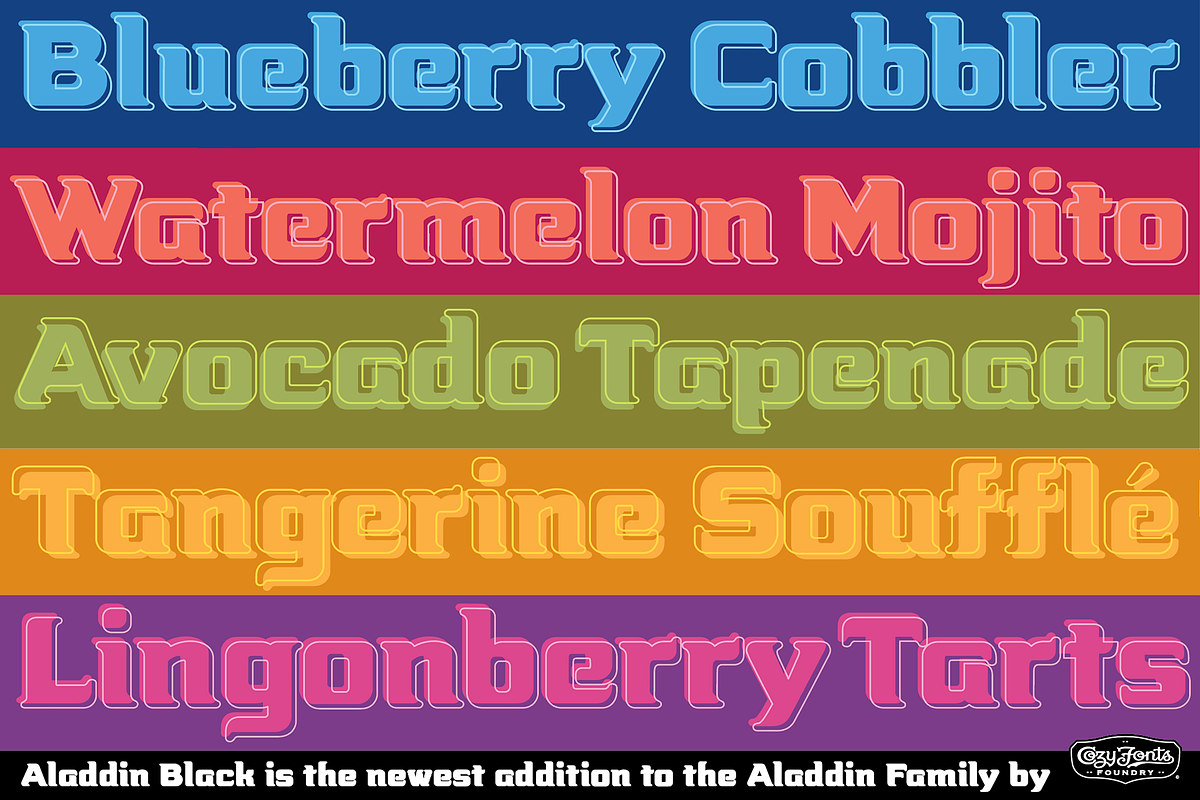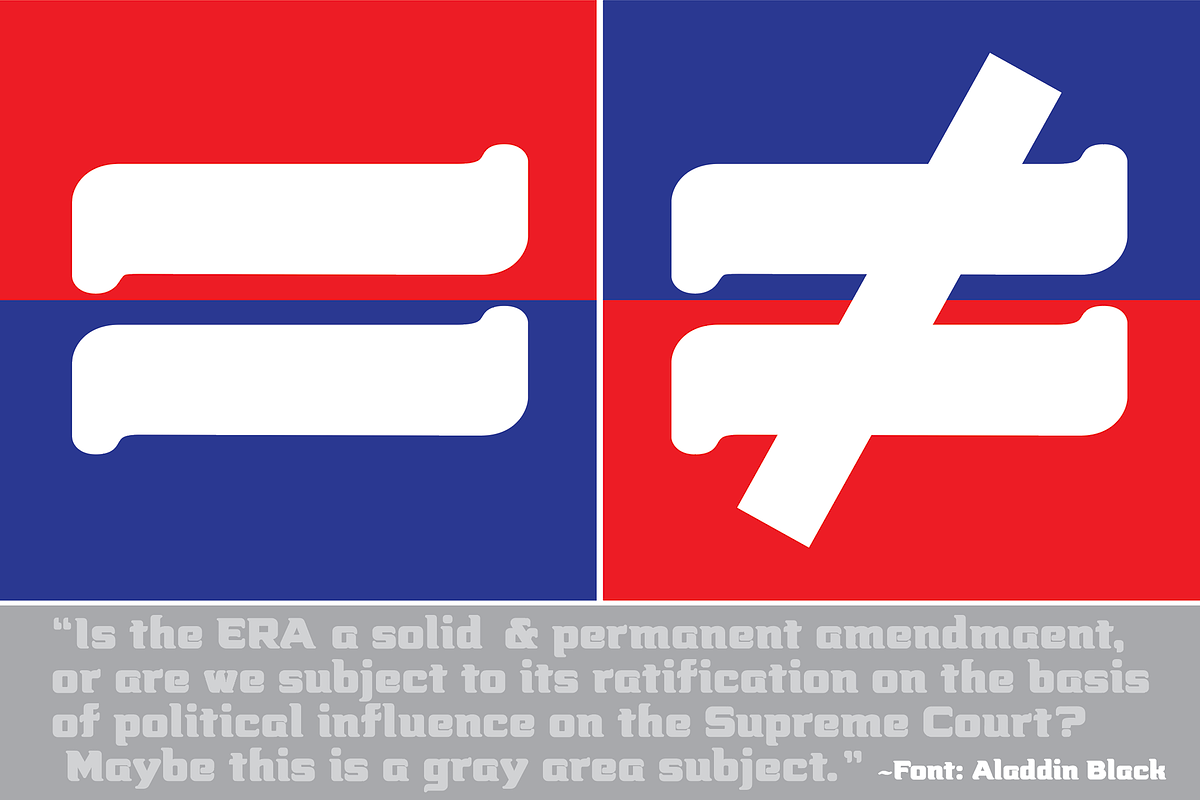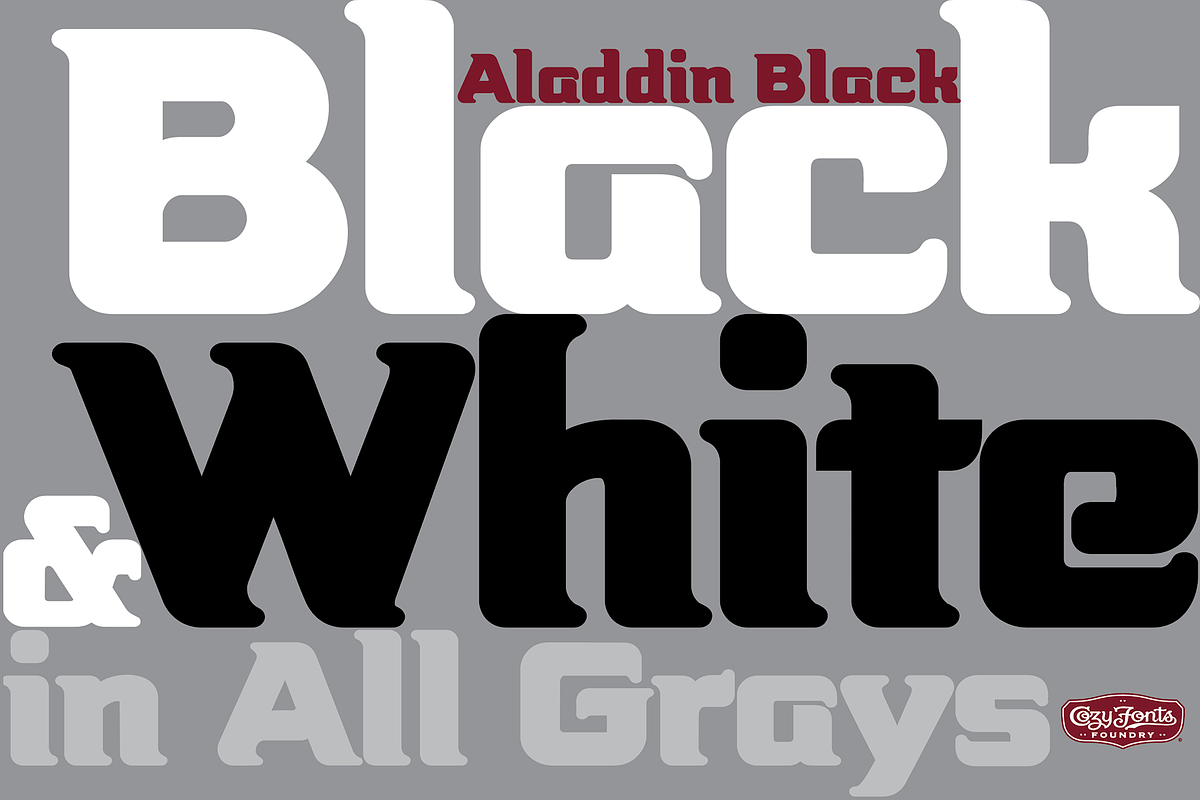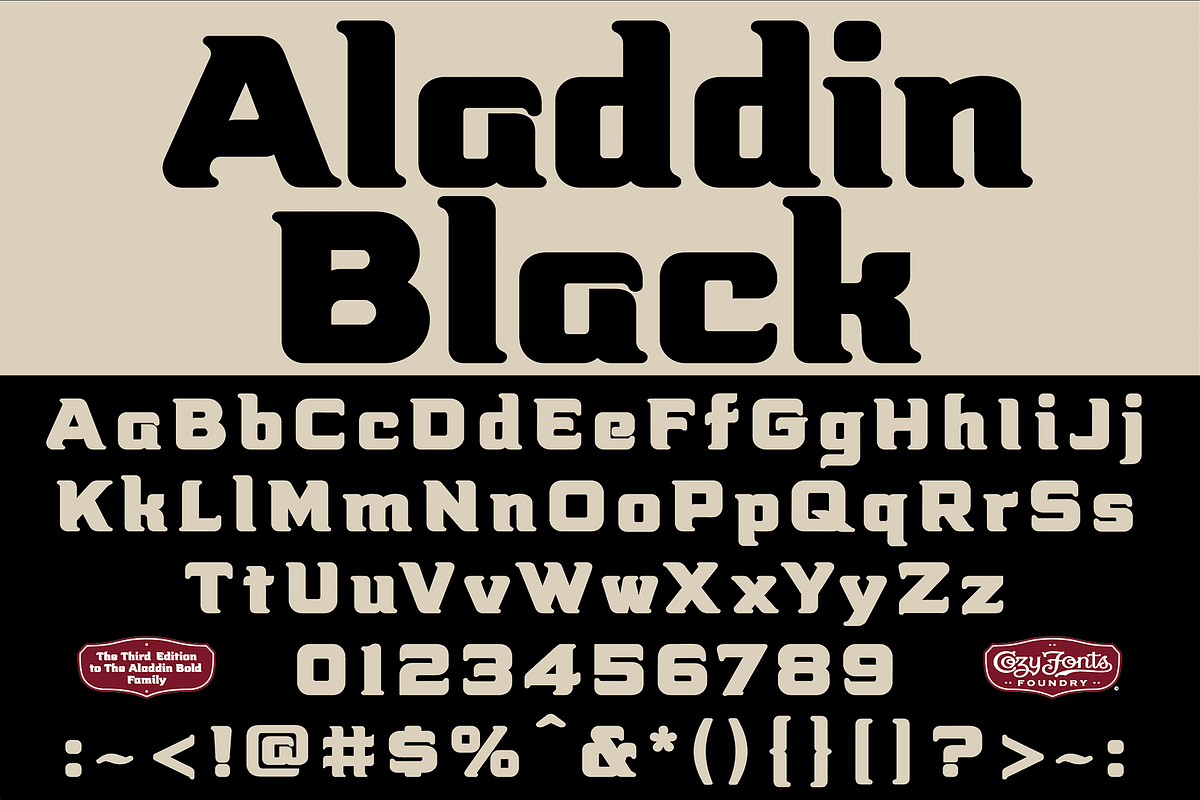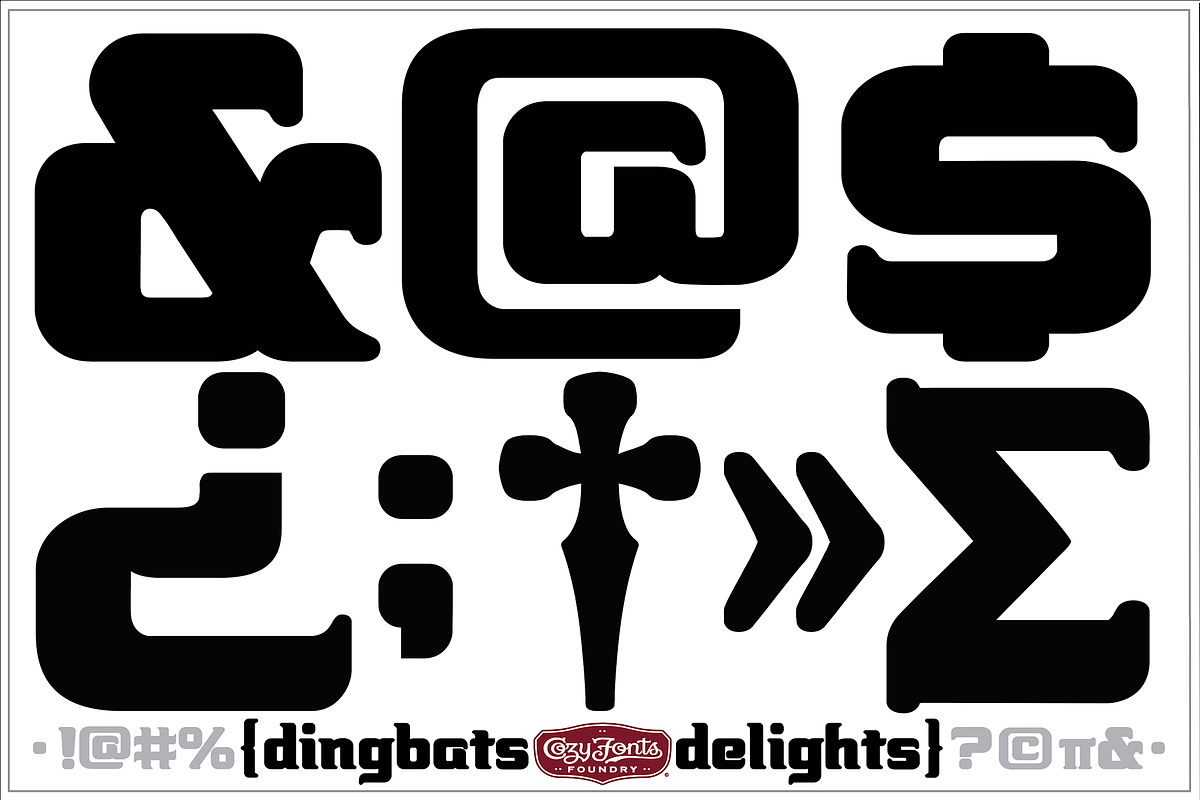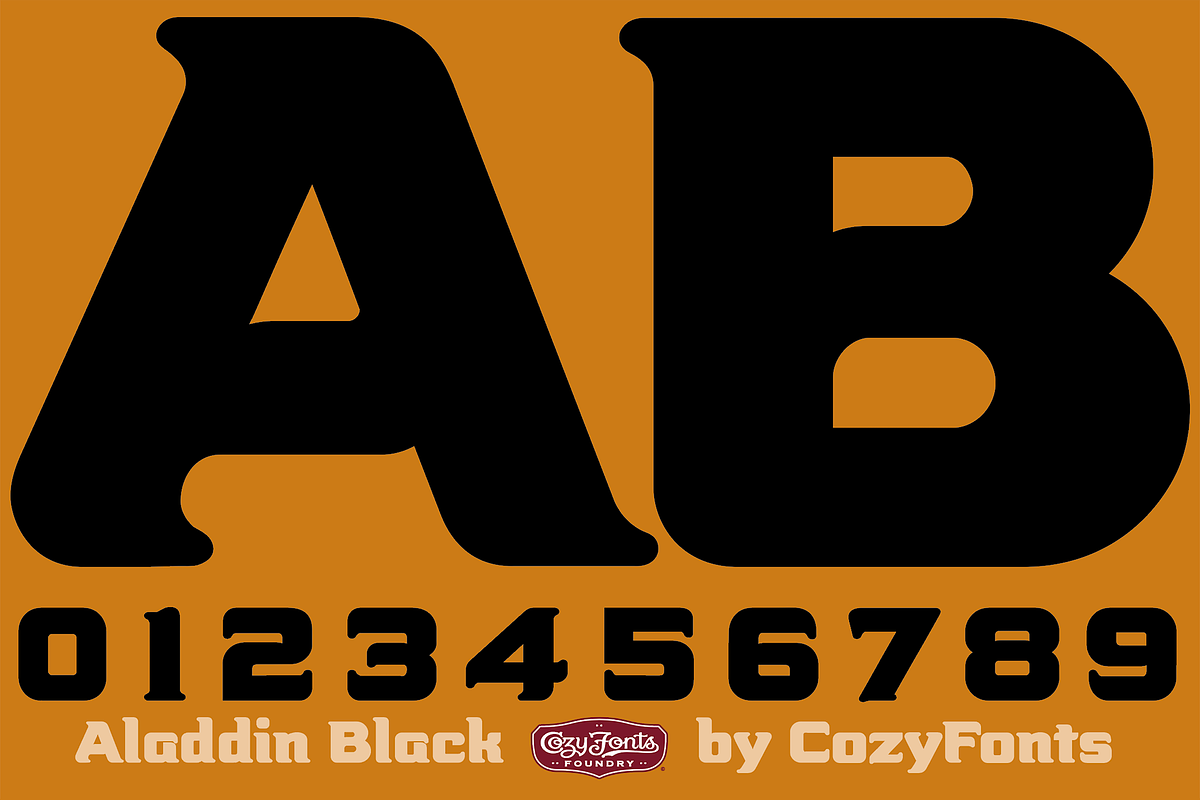
Aladdin Black
Aladdin Black is the third member of the Aladdin Bold Faont Family by Cozyfonts. It's Bolder and Rounded! It's great for headlines, product design titles, movie titles, logos, signage, and just about anything you need to draw attention to. It's has a personality that fits with vintage ephemera. reminiscent of a bygone era of publishing, eg., newspapers and bill posts, this font is universal in appeal. Designed by Tom Nikosey, a California Graphic Designer.